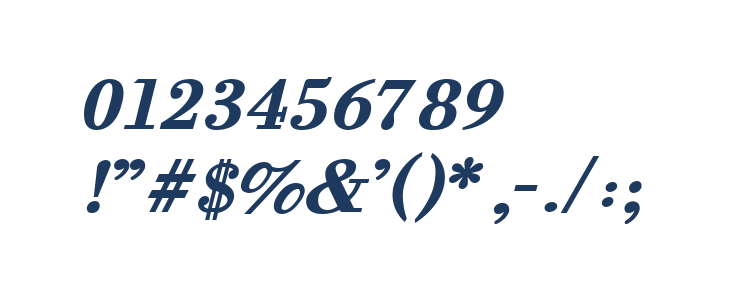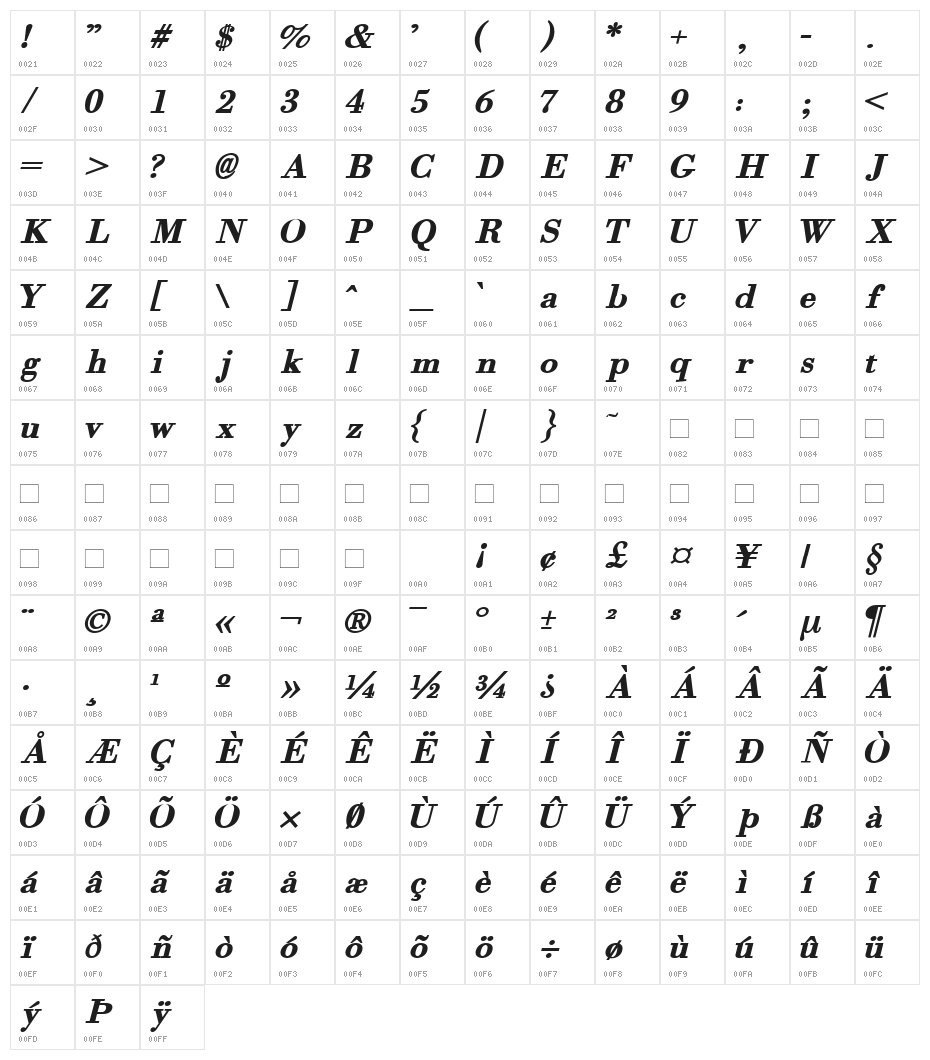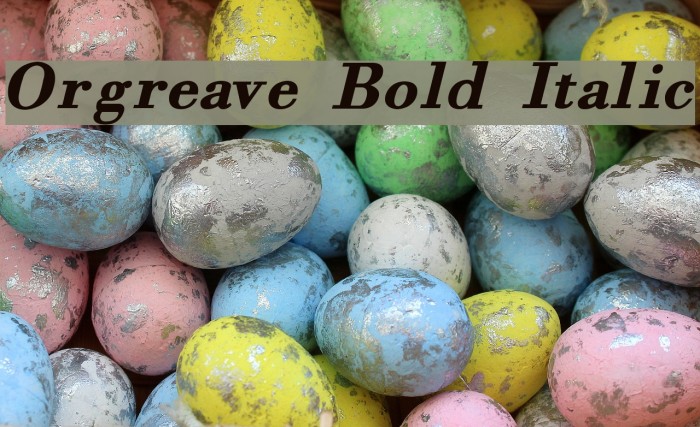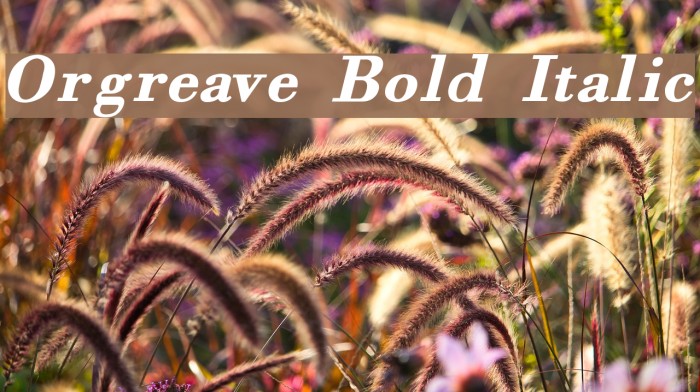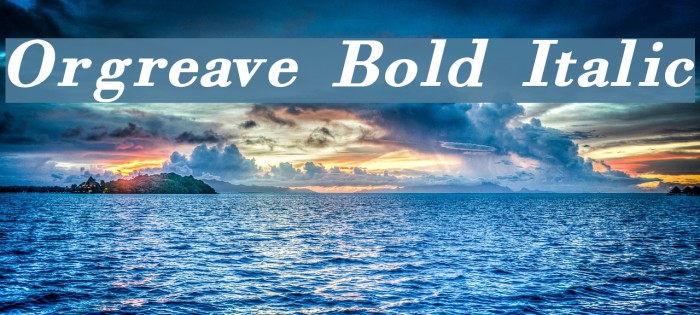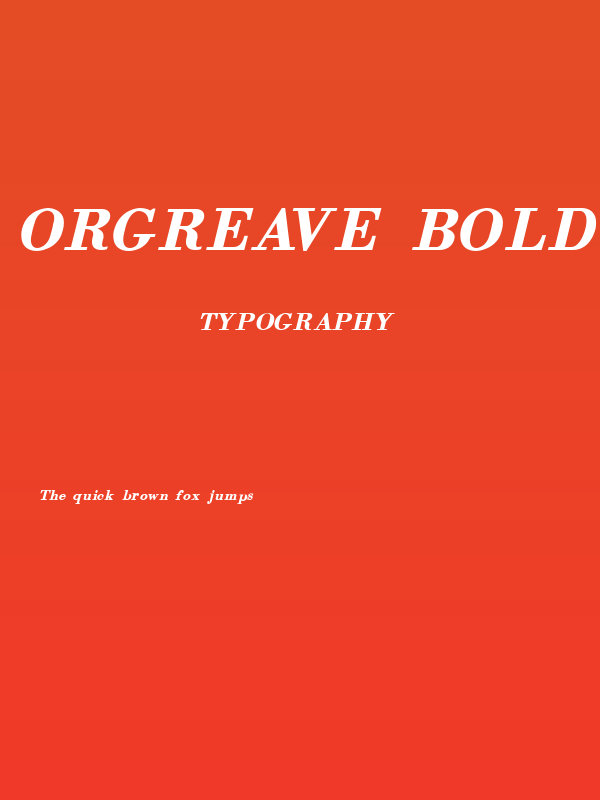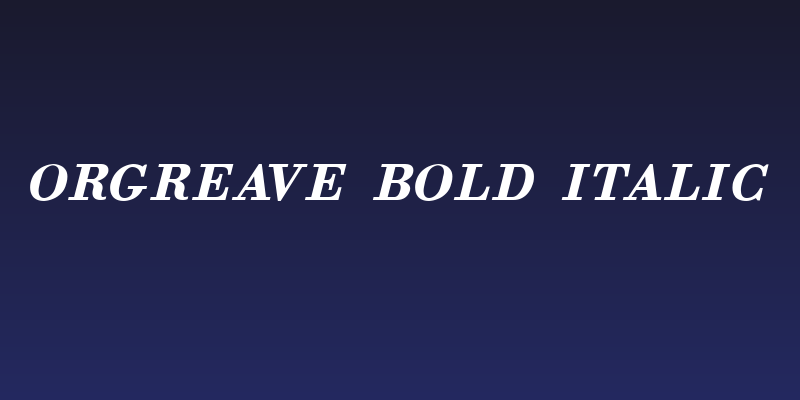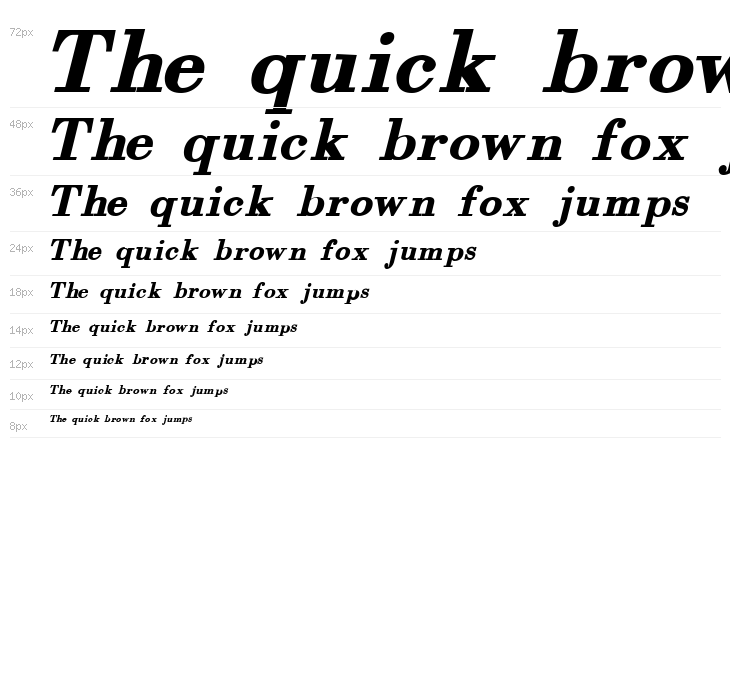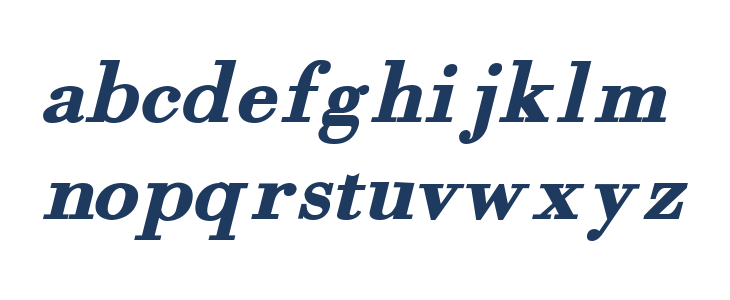
Orgreave Bold Italic Font
Orgreave Bold Italic Description
This font exhibits a bold and italicized style, characterized by its strong and dynamic presence. The letters are slanted, giving a sense of motion and elegance. The strokes are thick and consistent, providing a robust appearance. The uppercase letters are prominent and commanding, while the lowercase letters maintain a harmonious flow. Numbers are clear and bold, ensuring readability. Special characters are well-defined, adding versatility to the font. The overall design is both classic and modern, making it suitable for various applications.
| Proposed Projects | Ideal for branding, headlines, posters, and any project requiring a bold statement. |